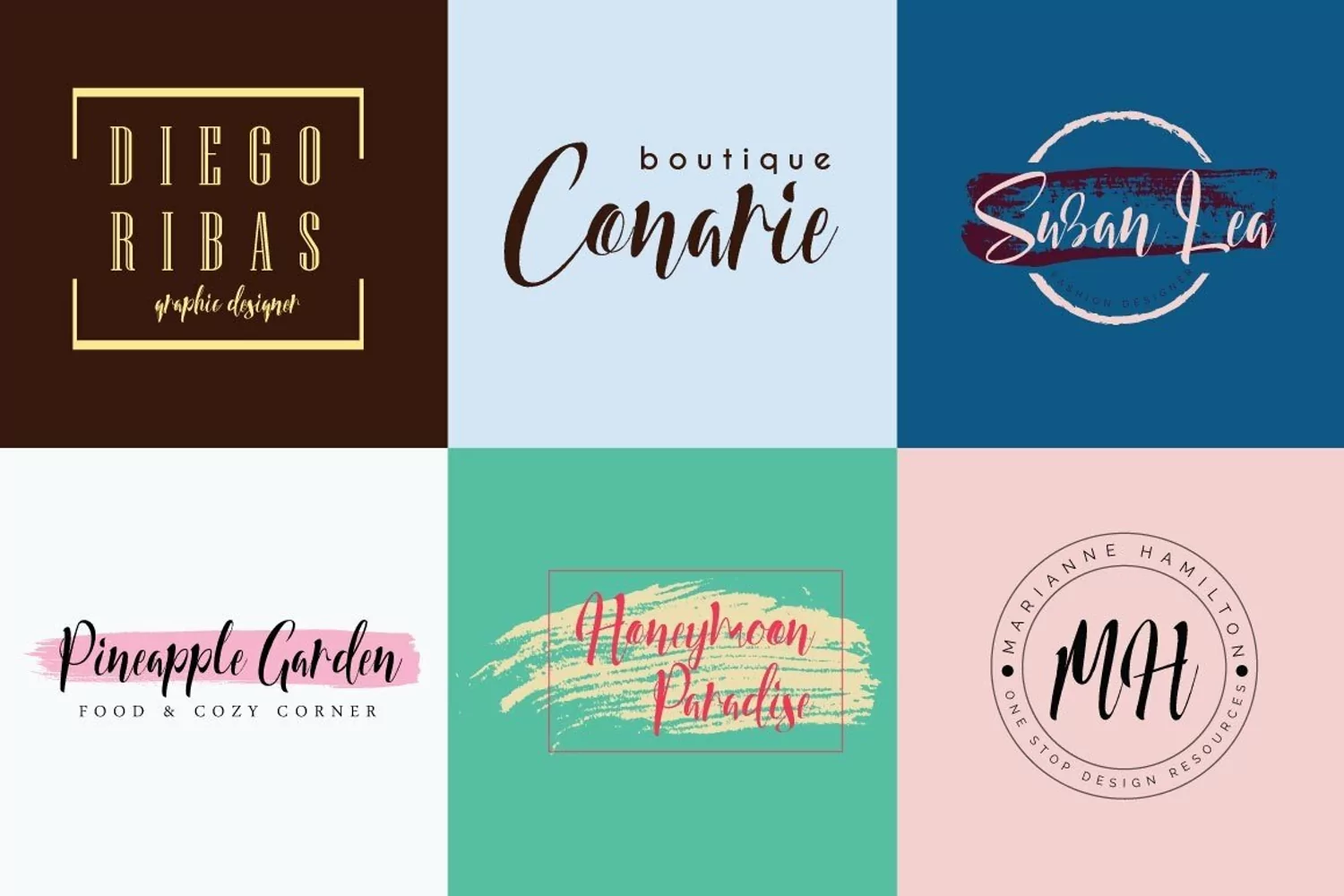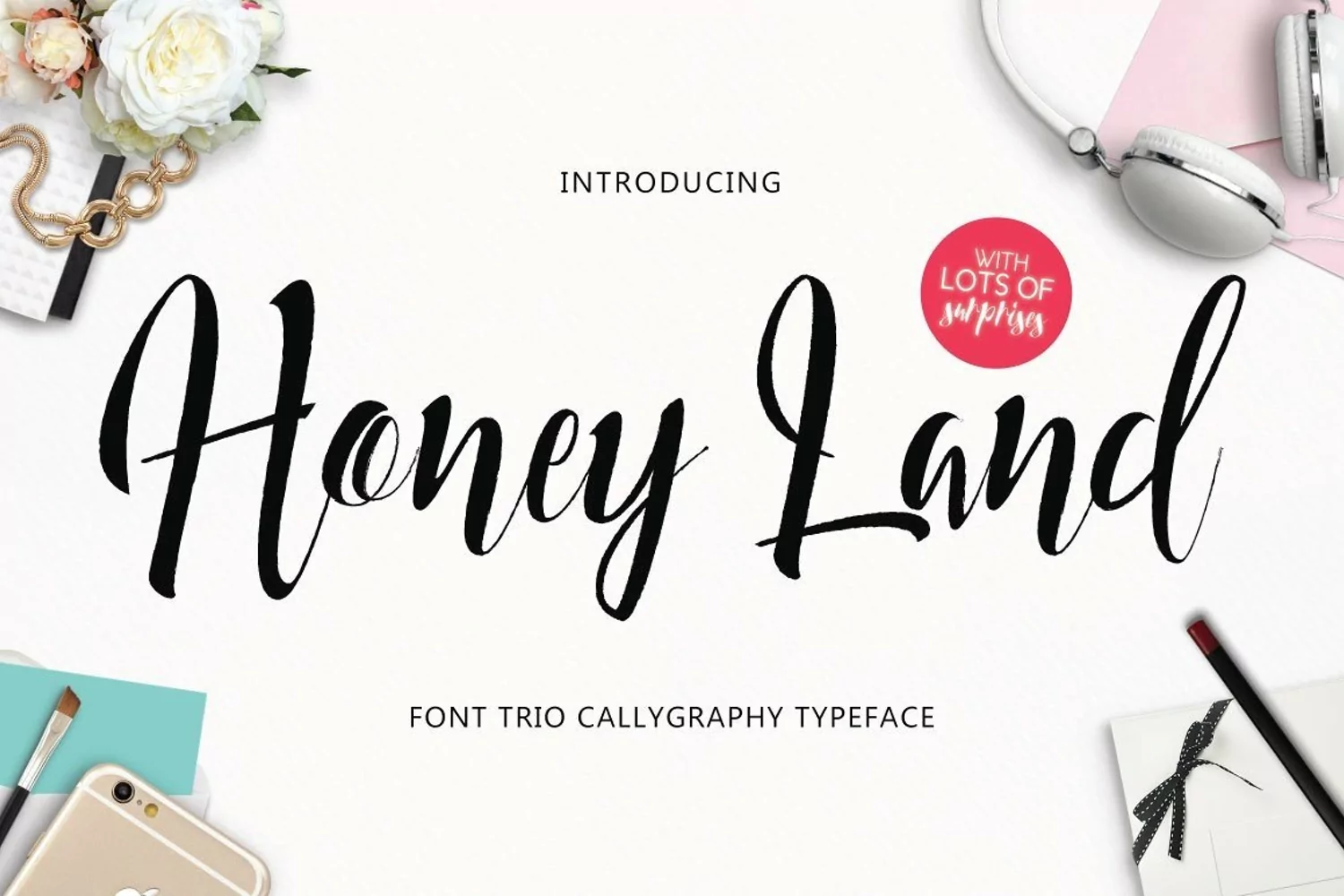
Web Font Honey Land Typeface
Say hello to HONEY LAND! A trendy, hand-brushed calligraphy font, designed with branding in mind ;)
Honey Land looks gorgeous on logos, websites, invitations, greeting cards, magazines, business cards, packaging and many more!
And since I've been totally in love with hand-lettered branding lately, I went ahead and whipped up some trendy, minimal logos for your creative pleasure. :)